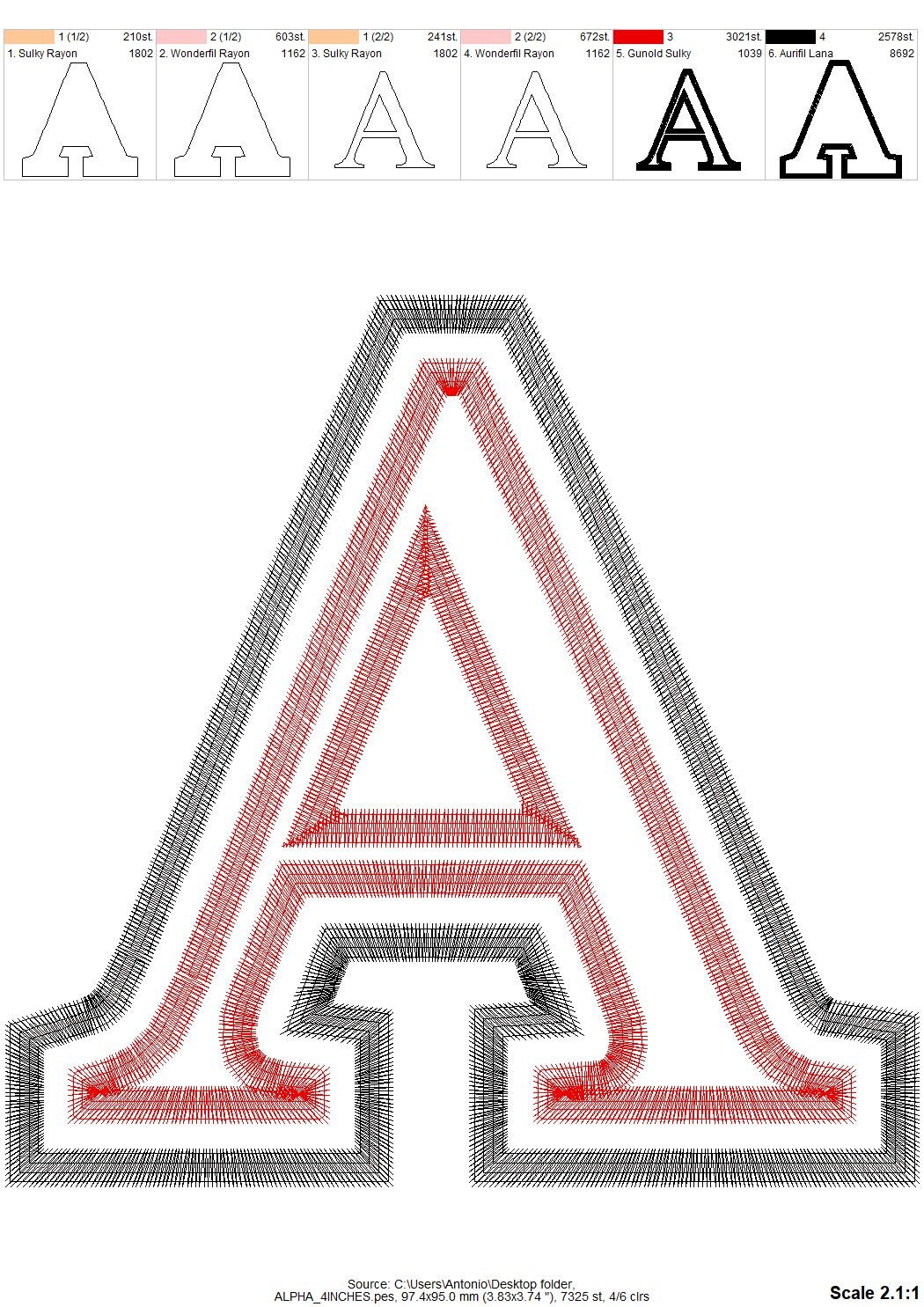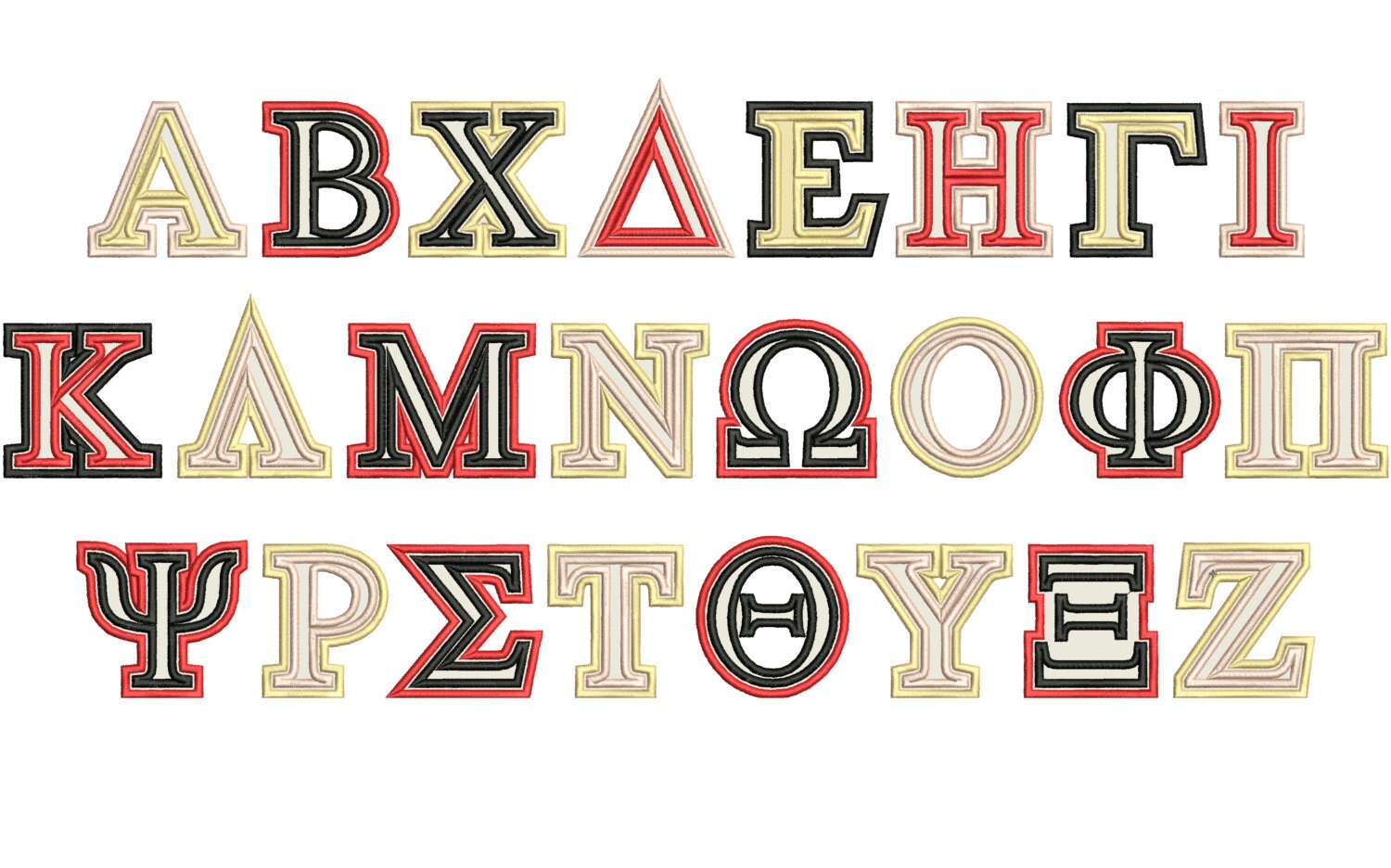
GREEK FONT appliqué 2 layers appliqué, 2 colors Greek alphabet ABC, theta alpha omega alpha kappa alpha, font machine embroidery designs
This listing is for whole Greek font/alphabet. Letters are 2 steps applique - 2 colors Greek font sororities
4 1/2 inches